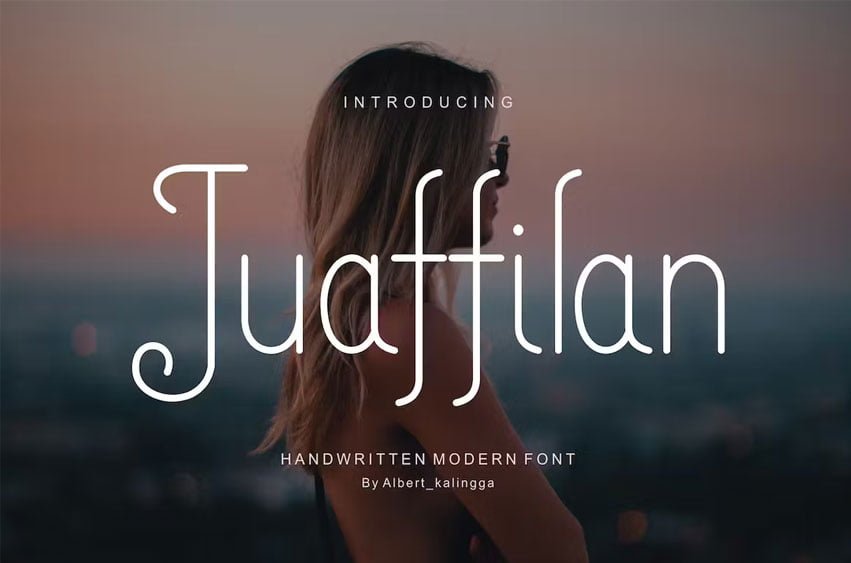
Juaffilan Font Modern Font is a bold and authentic display font. The font is suitable for any branding project like logo, esport, and many more. outstanding in a wide range of contexts.